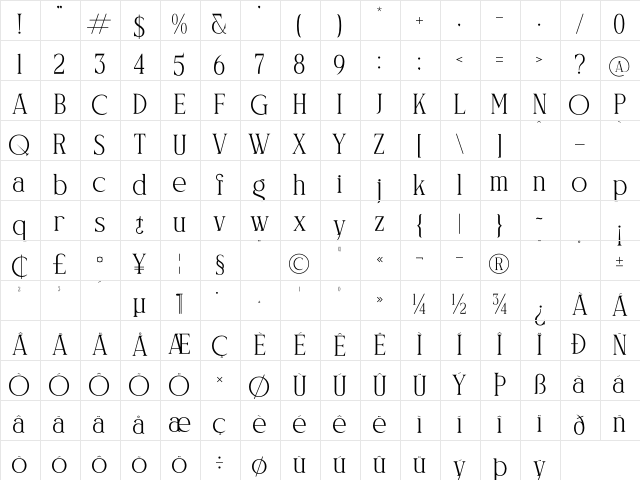
Naftegfo Regular
Foundry: Storytype Studio
Designer: Heru Utama Putra
Design Context for Naftegfo
Naftegfo is a composed and adaptable typeface that performs quietly and consistently across a wide range of design contexts.